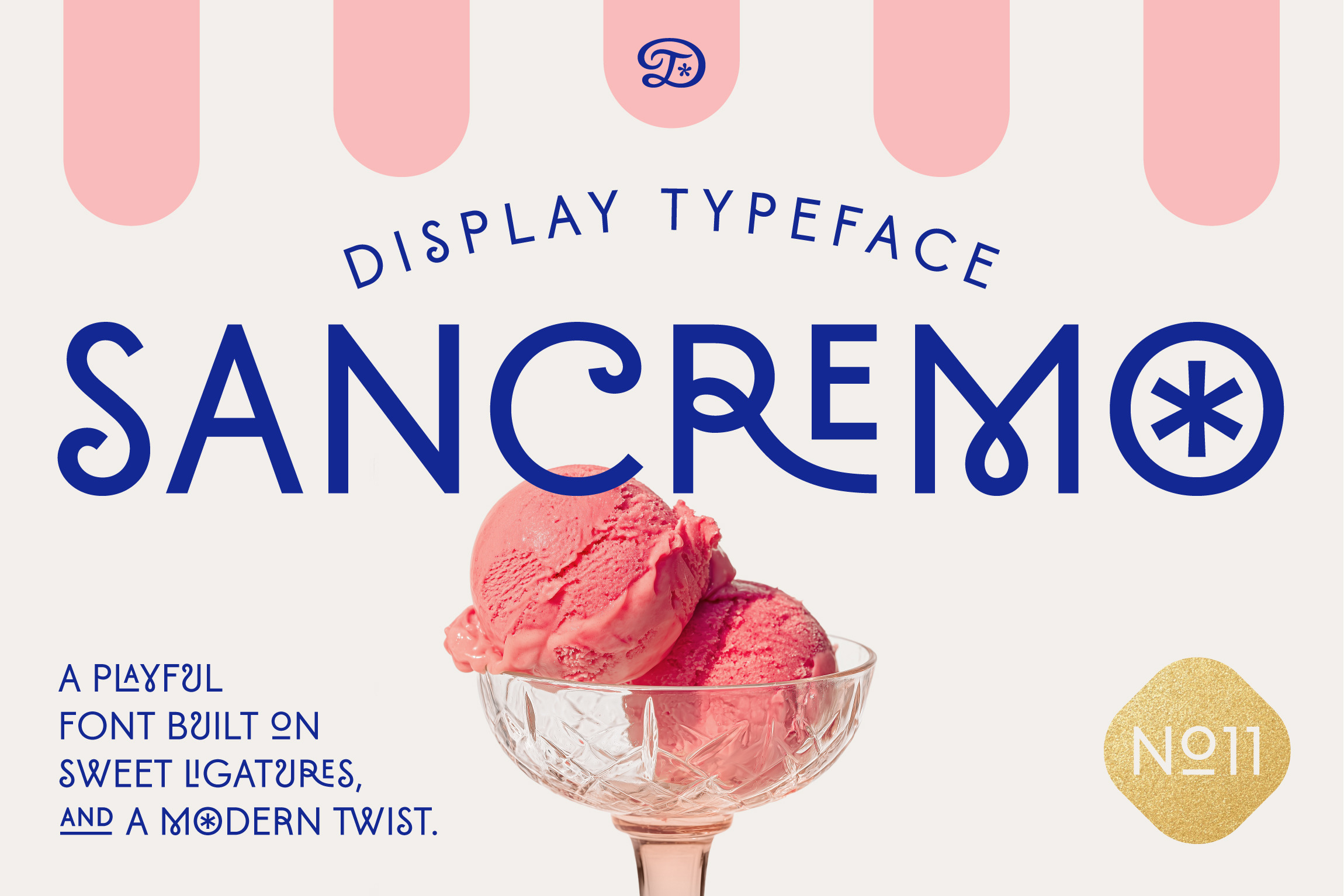
Sancremo – Playful Display Font
Sancremo is an all-caps sans display font with a playful charm and smooth, inviting shapes. Packed with ligatures and special characters, it adds personality and sweetness to any design. Perfect for logos, headlines, magazines, packaging or branding. This type brings a delightful touch wherever it’s used. Let your words pop with joy and style.
Basic latin alphabet A-Z
55 Ligatures & Alternates
56 Accented characters
Numbers, Punctuation, Currency, Symbols, Math symbols & Diacritics
Old style figures